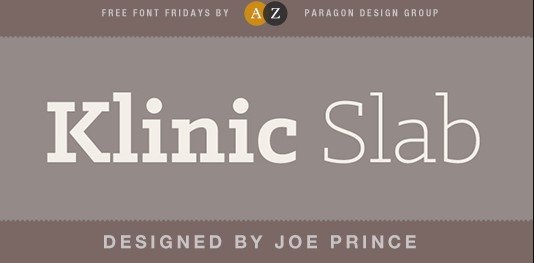
The font we are sharing which is free for all the designers who is finding stylish typeface and great font for their projects. Klinic Slab Font was shared and developed by the Joe Prince who was the designer this lovely and amazing font typeface.
All the ligatures of this font that is similar to tahoma font which was digitally drawn by the designer. Joe Prince also puts some additional strokes to make this beautiful font super powerful and more elegent.
This font can easily be use professionally because of its clear and cleat text form characters. You can also view the font in the image below to takes the view of the demo of this font.
The Klinic Slab Font is the famous slab serif and most used typeface which was designed by the Joe Prince.